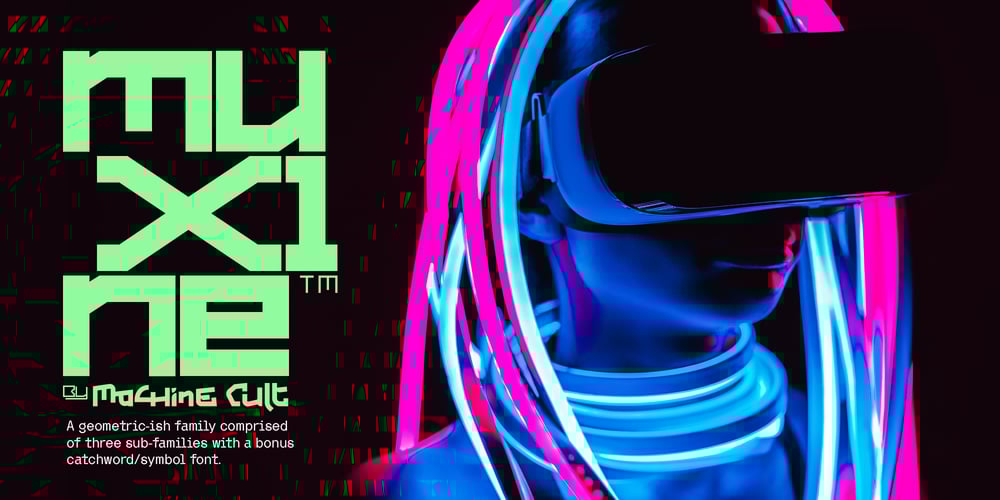
MuX1ne Font Family was designed by Brent Airey and published by Machine Cult. MuX1ne contains 10 styles and family package options. A geometric-ish font family that’s a bit off-kilter, offering three families: Regular, Rounded and Hatch as well as the bonus Noise, catchwords and dingbats for some occasions. Each font comes in Light, Regular and Bold styles. Complete latin character set with a range of ligatures.